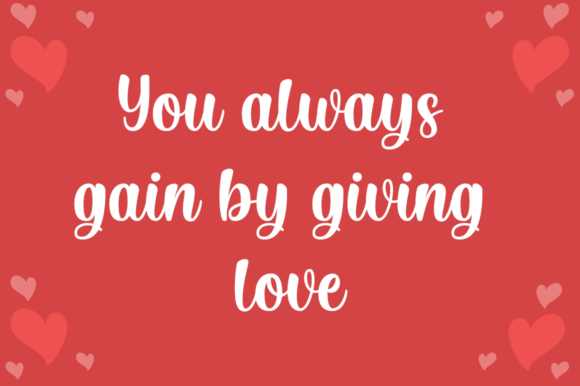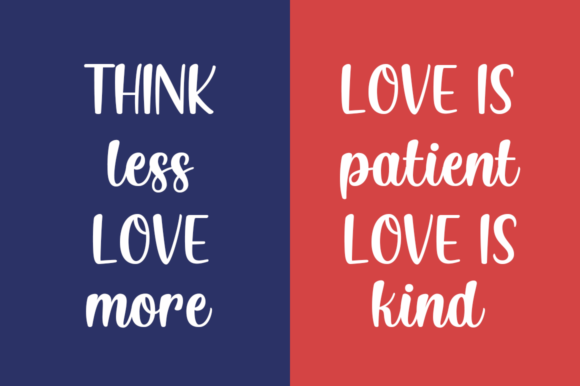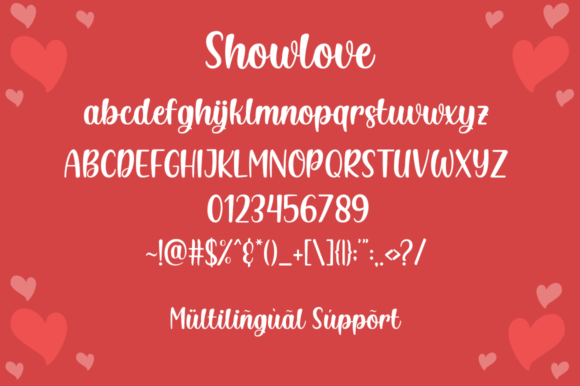
Showlove Font
About Showlove Font
Showlove is an equally lovely and funny handwritten font. It includes full of Alphabetical glyphs, Numerals, and punctuation.